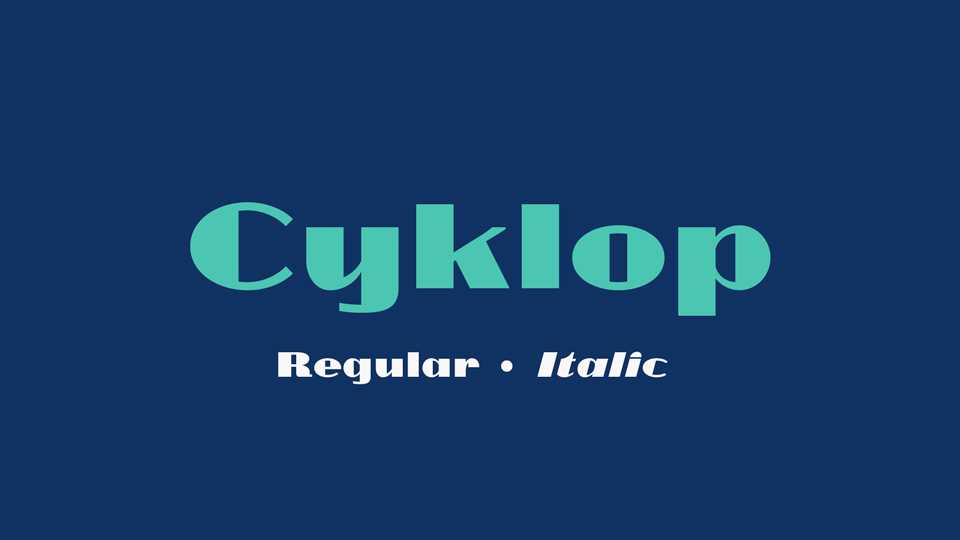
Download Cyklop font, a sans serif typeface with a highly modulated stroke so it has high typographic contrast. Most characters have thin rectangles as additional counters giving the unique shape of the characters.
Designer: Janusz M. Nowacki